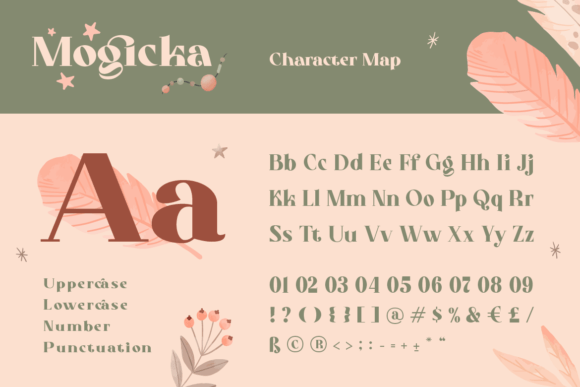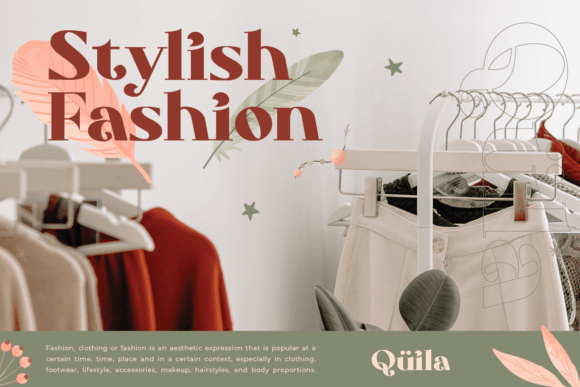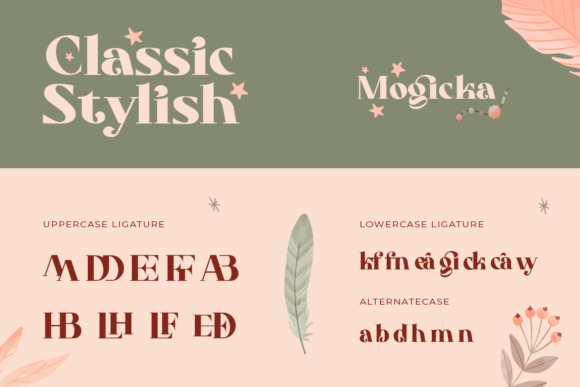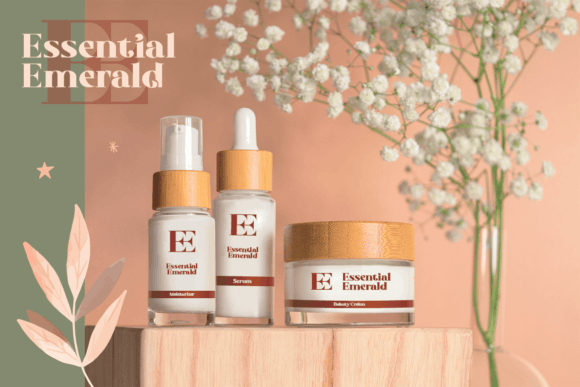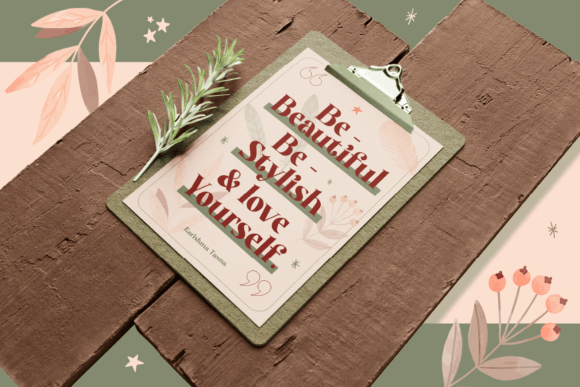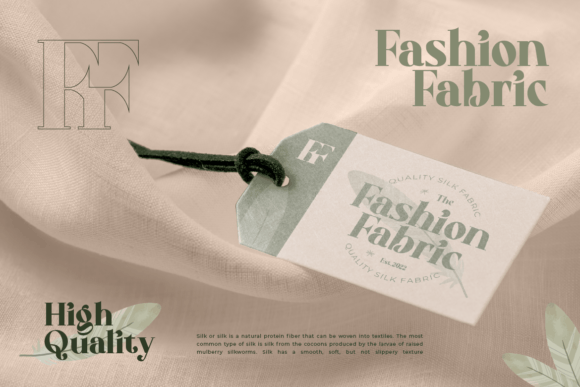
Introduction to Mogicka Font
As a designer, you know that the right font can make or break a creative project. Remember that moment when you spent hours tweaking the perfect typography for your latest design, only to have it all come together with the perfect font choice? For many of us, that ‘aha’ moment is what makes all the hard work worth it. And if you’re looking for a font that can deliver that magic, you might want to consider the Mogicka Font.
This high-quality design resource has been a favorite among designers for its stylish shape and versatility. Whether you’re working on a logo design, social media campaign, or book title, the Mogicka Font is sure to impress. Plus, with its modern and retro look, you can use it to create a timeless design that stands the test of time.
Key Features of Mogicka Font
- Features a clean and modern design aesthetic, perfect for use in a variety of creative projects, from branding to editorial content.
- Designed to be versatile, the Mogicka Font is suitable for use in a range of creative projects, from print to digital applications.
Honest Review: Mogicka Font
As a designer, I’m always on the lookout for high-quality design resources that can elevate my creative projects. I recently had the chance to work with the Mogicka Font, and I must say it’s been a game-changer.
What works well with the Mogicka Font is its versatility and unique style. The font is perfect for adding a touch of magic to your designs, from fantasy novels to video game titles. The transparent background option also makes it easy to layer and combine with other design elements.
- ✨ Unique and elegant design that adds a touch of magic to any project
- ✨ Versatile font that can be used for a wide range of creative projects
- ✨ Transparent background option for easy layering and combination with other design elements
However, I did notice a few limitations with the Mogicka Font. The font is not ideal for body text, as it can be quite ornate and difficult to read at smaller sizes. Additionally, the font does not come with a comprehensive character set, which may limit its use for certain languages.
Overall, I’m really impressed with the Mogicka Font and would highly recommend it for designers looking to add a touch of magic to their creative projects.
The Mogicka Font is ideal for use in creative projects such as logos, branding materials, and marketing materials. It can also be used in educational projects, such as presentations and documents, to add a touch of sophistication and style.